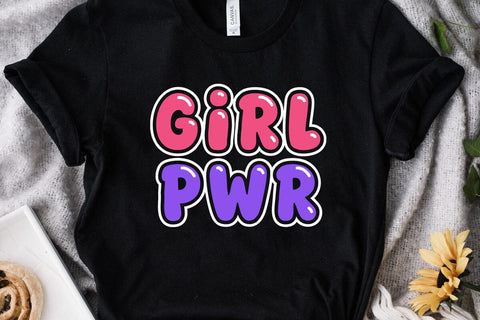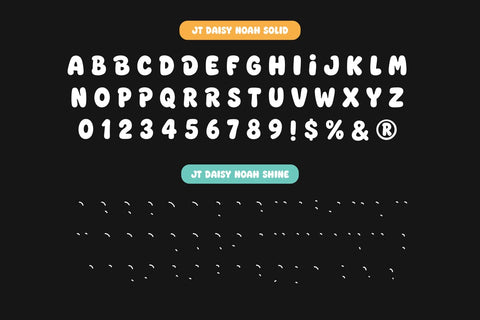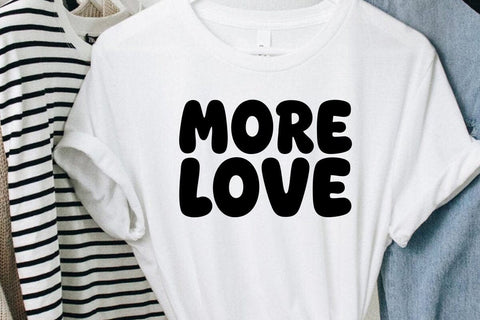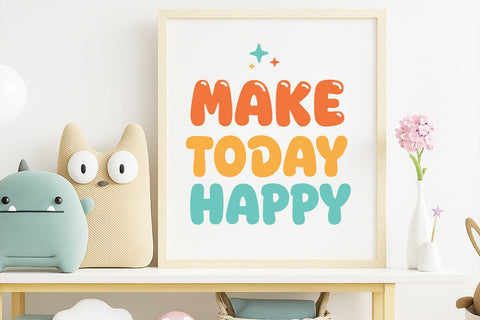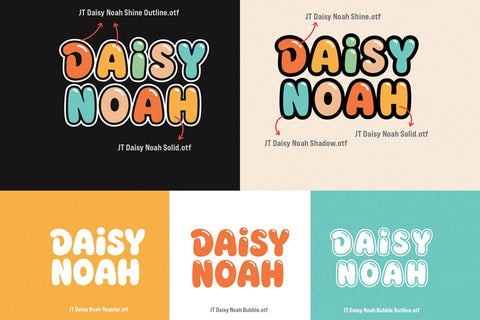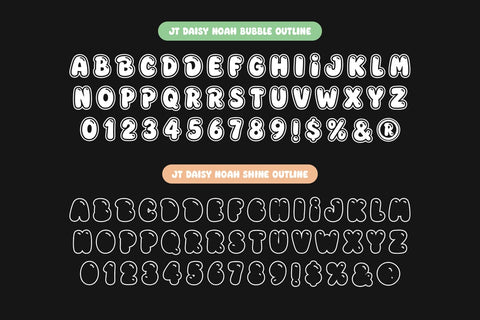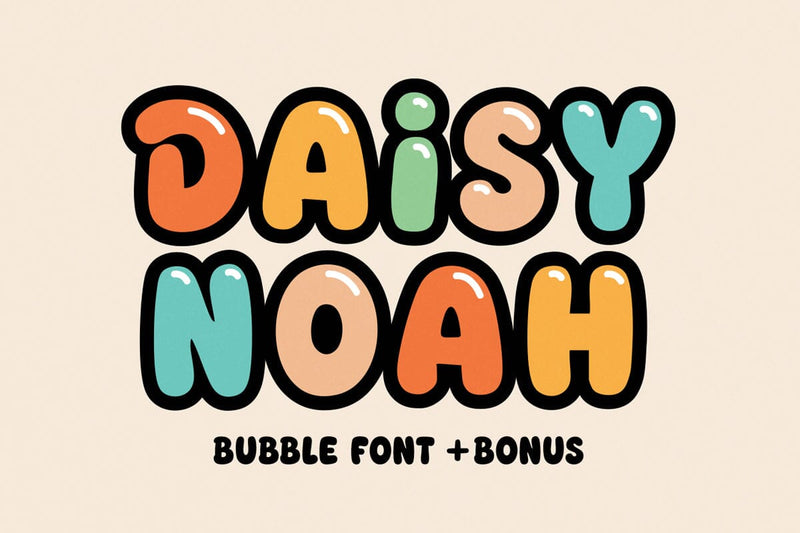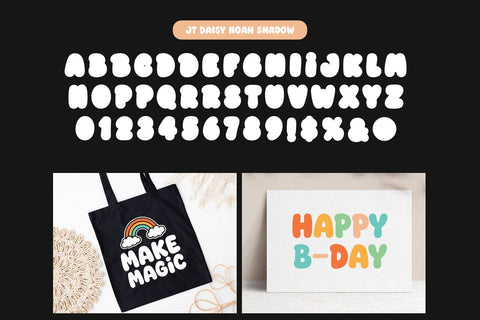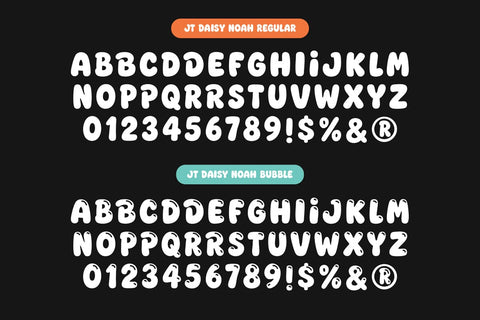
Daisy Noah - Bubble Groovy Font
Daisy Noah is a bubble, groovy, bubbly, retro, boho, and fun 70s display font. Whether you’re using it for crafts, digital design, presentations, or making greeting cards, this font has the potential to become your favorite, no matter the occasion! It is the best choice for creating eye-catching logos, branding, and quotes. Add it to your most creative ideas, and notice how it makes them come alive!